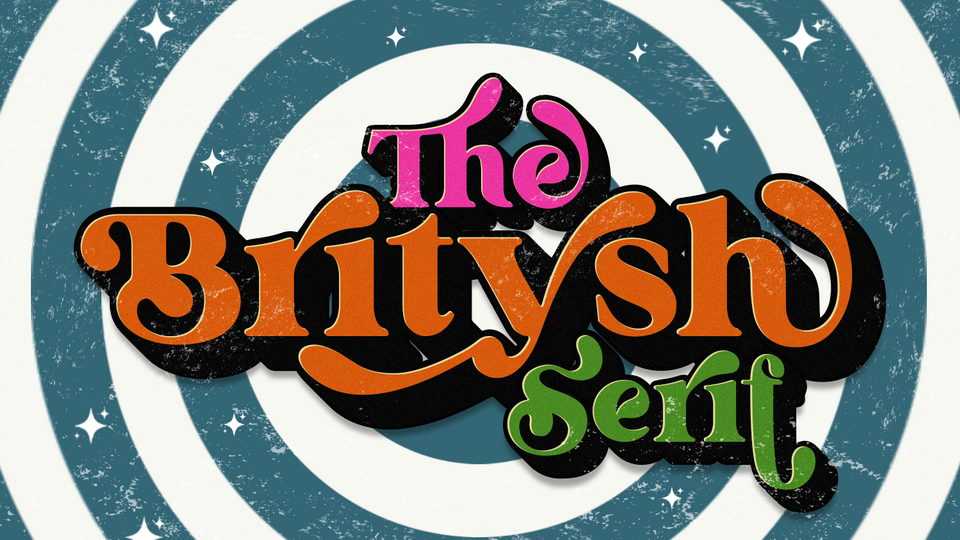
Download Britysh font, a bold and retro styled display typeface. Britysh reads as strong, confident, and dynamic and can add tons of nostalgic character to your designs.
Designer: Sealoung